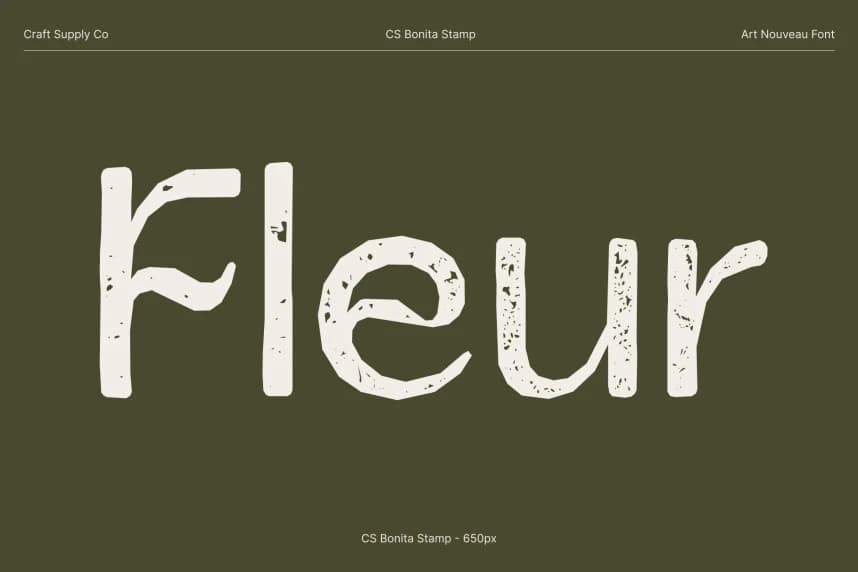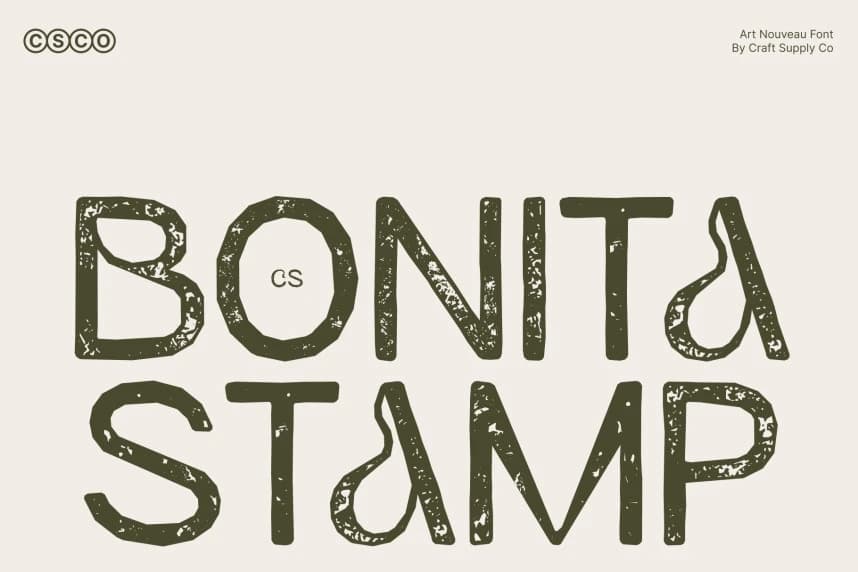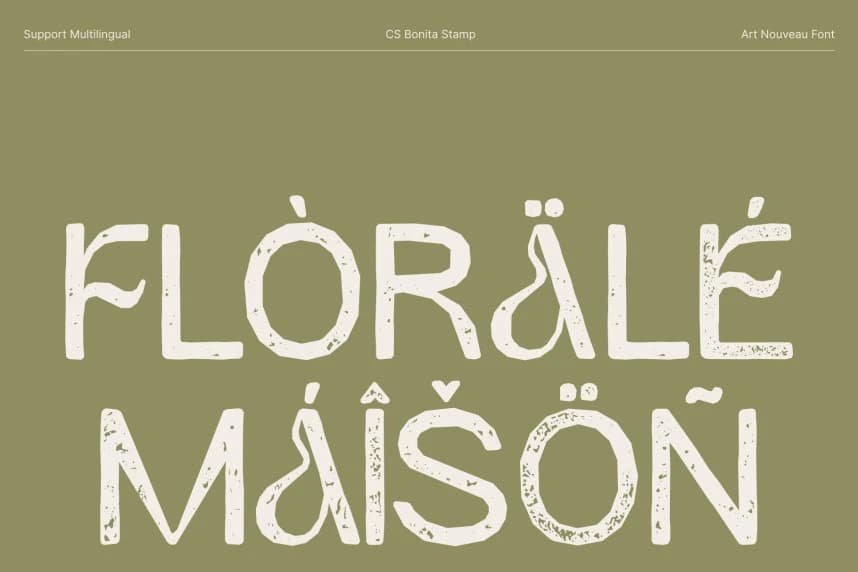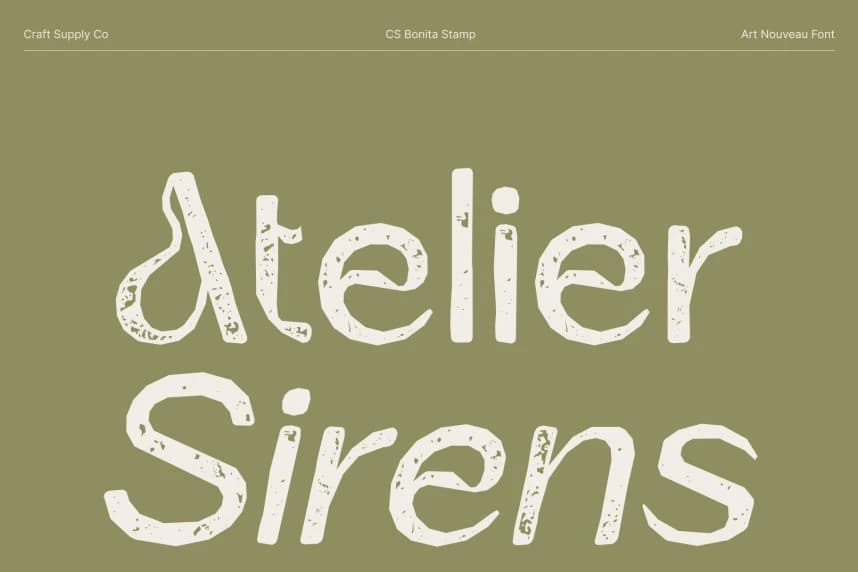
CS Bonita Stamp Font – Art Nouveau Elegance with Timeless Texture Modern Sans Serif with Artistic Stamped Detail. This beautifully merges contemporary sans-serif structure with the graceful influence of Art Nouveau